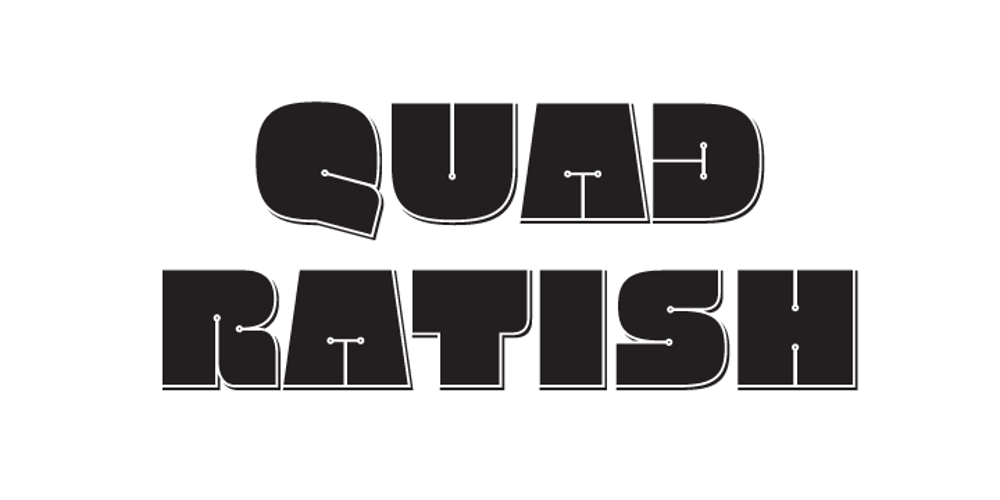
Quadratish Font Family was designed by Valery Zaveryaev and published by Gaslight. Quadratish contains 2 styles and family package options. Quadratish is the nice-looking ultrablack fonts. It have solid and outlined styles; they can be combined in order to get third style.